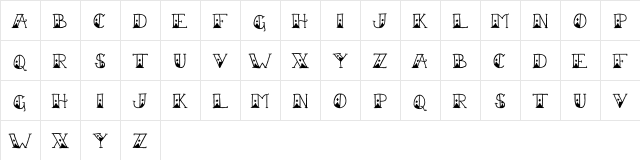
Sailor Scrawl Fancy Regular
| Designer | Out Of Step Font Company |
Design Context for Sailor Scrawl Fancy Typeface
Sailor Scrawl Fancy is a composed and adaptable typeface that performs quietly and consistently across a wide range of design contexts.